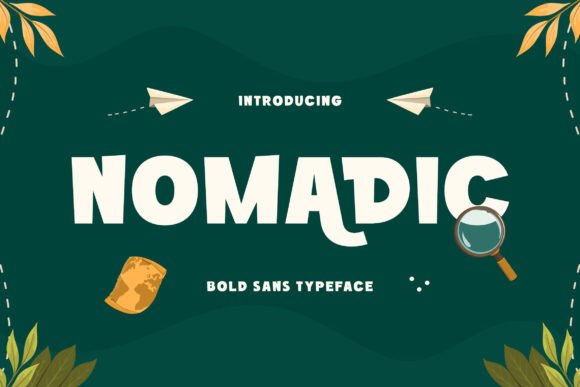
Prepare yourself for an unforgettable typographic expedition with Nomadic, the untamed sans serif font that will ignite your wildest creative adventures. Crafted by the masterful hands of TypeFactory, Nomadic embodies the spirit of the untamed West, promising a captivating journey through worlds unknown.
With its bold and playful character, Nomadic dances across your designs, evoking a sense of freedom and adventure. Each glyph carries the weight of the vast frontier, ready to lasso your imagination and guide it towards uncharted territories.
Whether you're crafting a captivating logo that commands attention or conjuring a poster that transports you to the heart of a Western saga, Nomadic stands as your fearless companion. Its versatility knows no bounds, effortlessly adapting to business cards, album covers, and any creative endeavor that yearns for a touch of the untamed.
But Nomadic is more than just a font; it's a gateway to a world of boundless possibilities. It's the perfect font for those who dare to embrace their inner maverick, those who seek to leave their mark on the digital landscape with a unique and unforgettable voice.
So saddle up, partner, and let Nomadic be your guide as you embark on a typographic adventure where the ordinary surrenders to the extraordinary. With Nomadic by your side, your designs will ride off into the sunset, leaving an unforgettable trail of creativity in their wake.